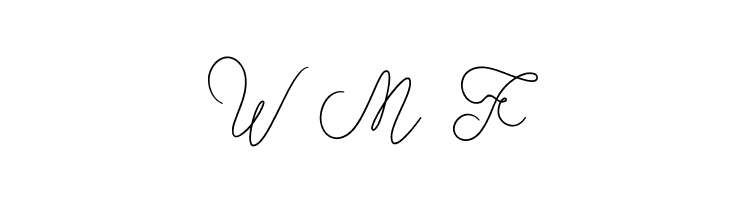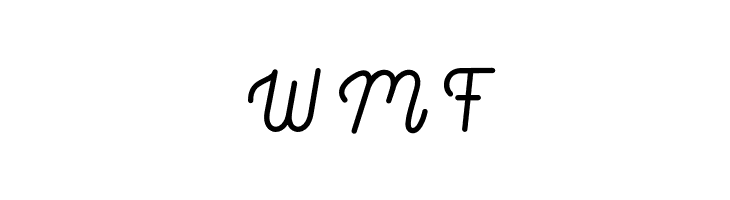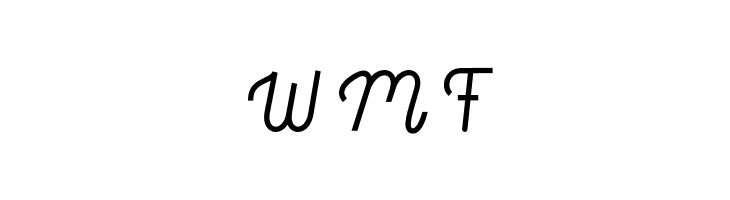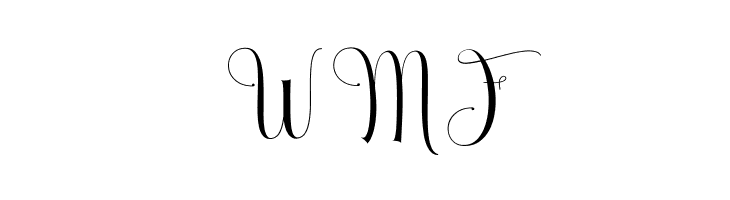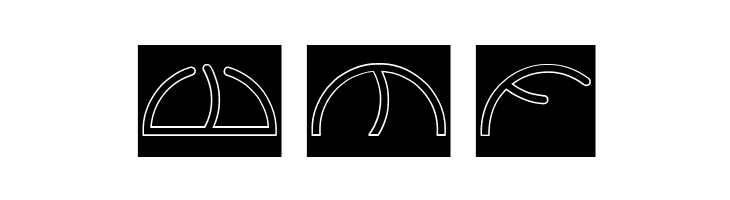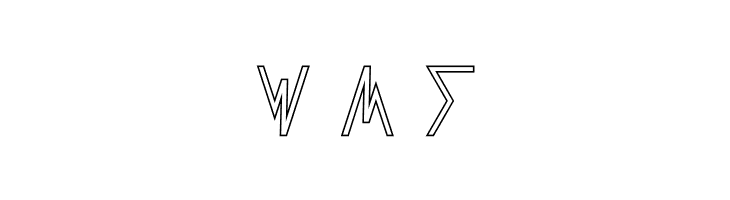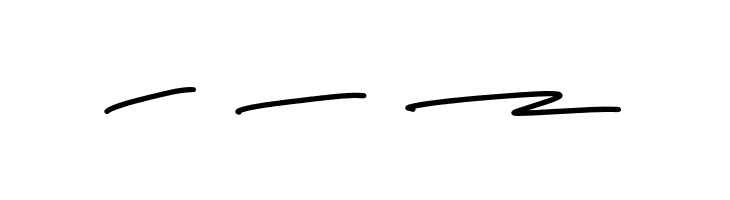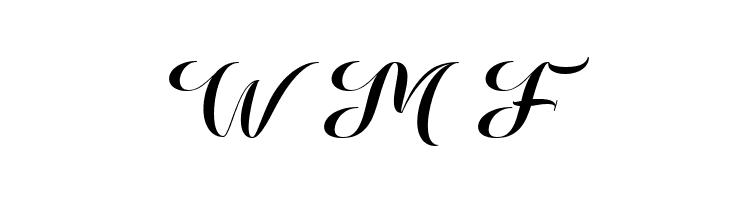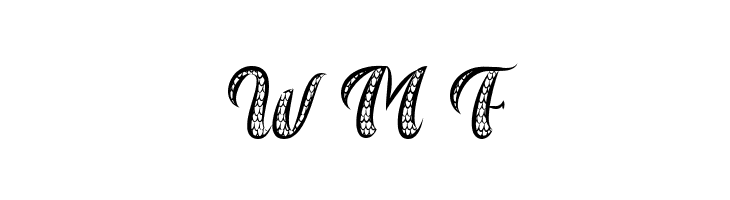
An elegant, flowing script font with high contrast and refined style.
A playful, rounded script font with smooth curves and flowing lines.
A playful, handwritten script font with a dynamic and friendly style.
An elegant, decorative script font with intricate curves and flourishes.
A decorative, abstract font with fluid, mystical designs.
A geometric, hollow font with angular, futuristic designs.
A flowing, elegant script with delicate swashes and a calligraphic feel.
A graceful, handwritten script font with fluid, continuous strokes.
An elegant, flowing script font with a sophisticated, cursive style.
A bold, decorative font with a dragon scale pattern, perfect for fantasy themes.